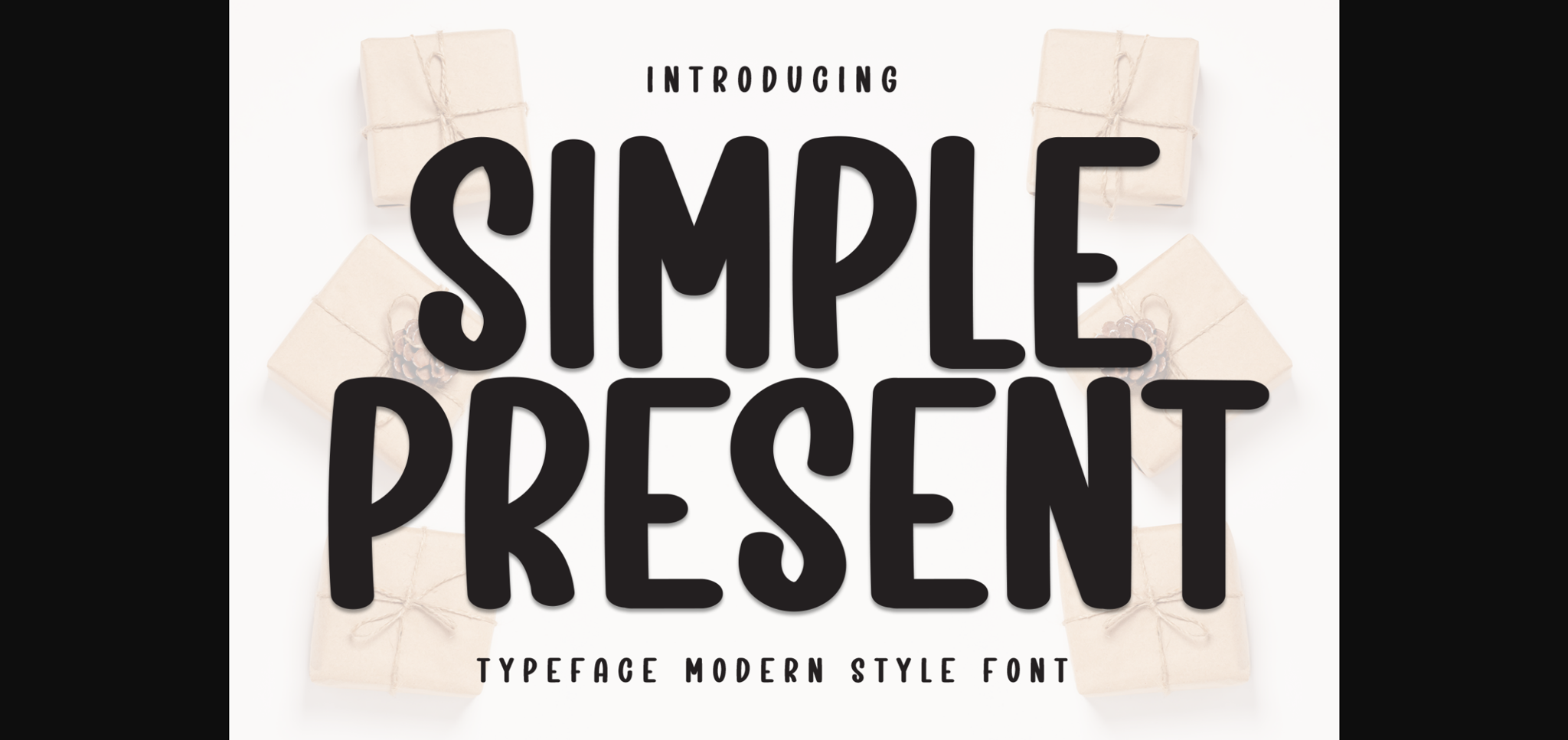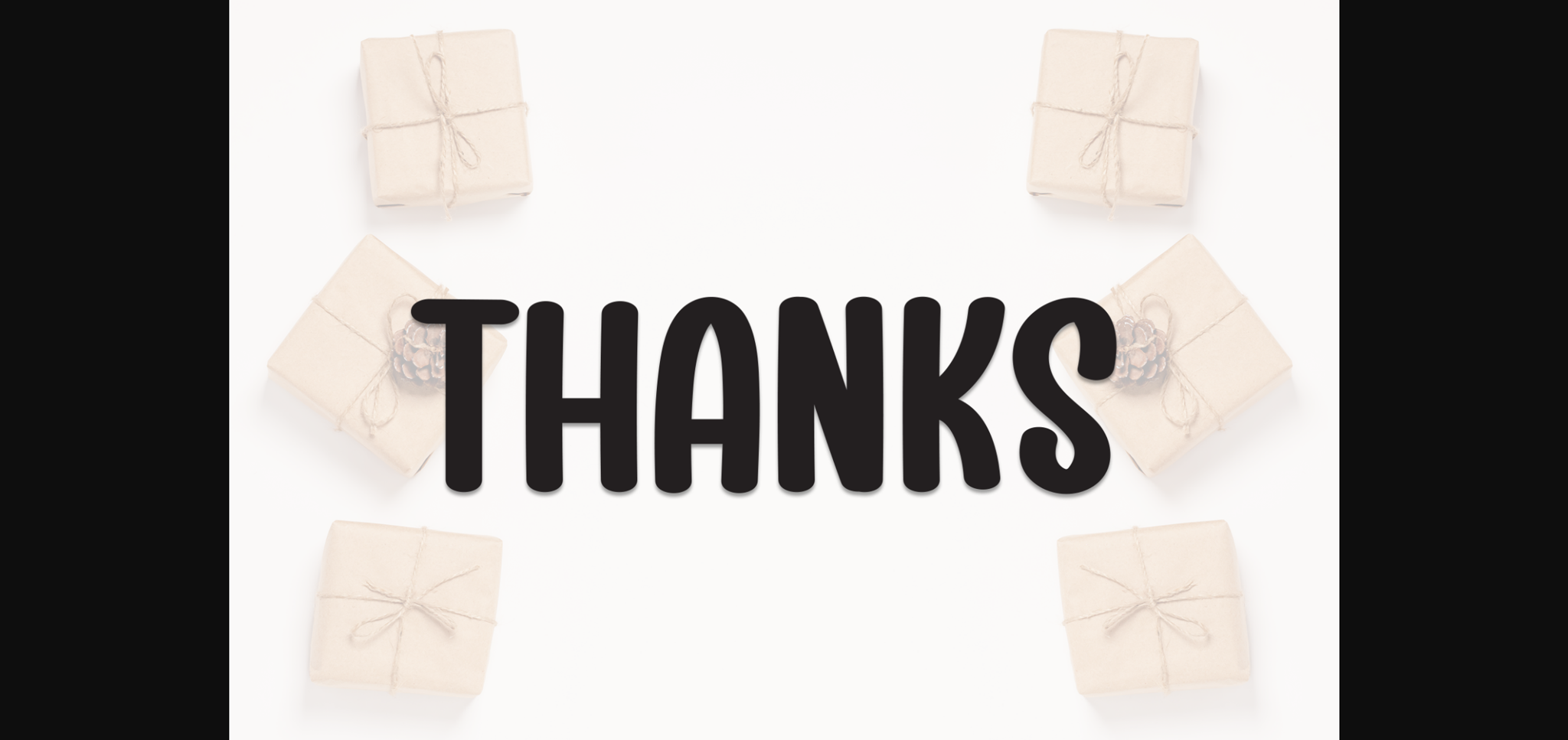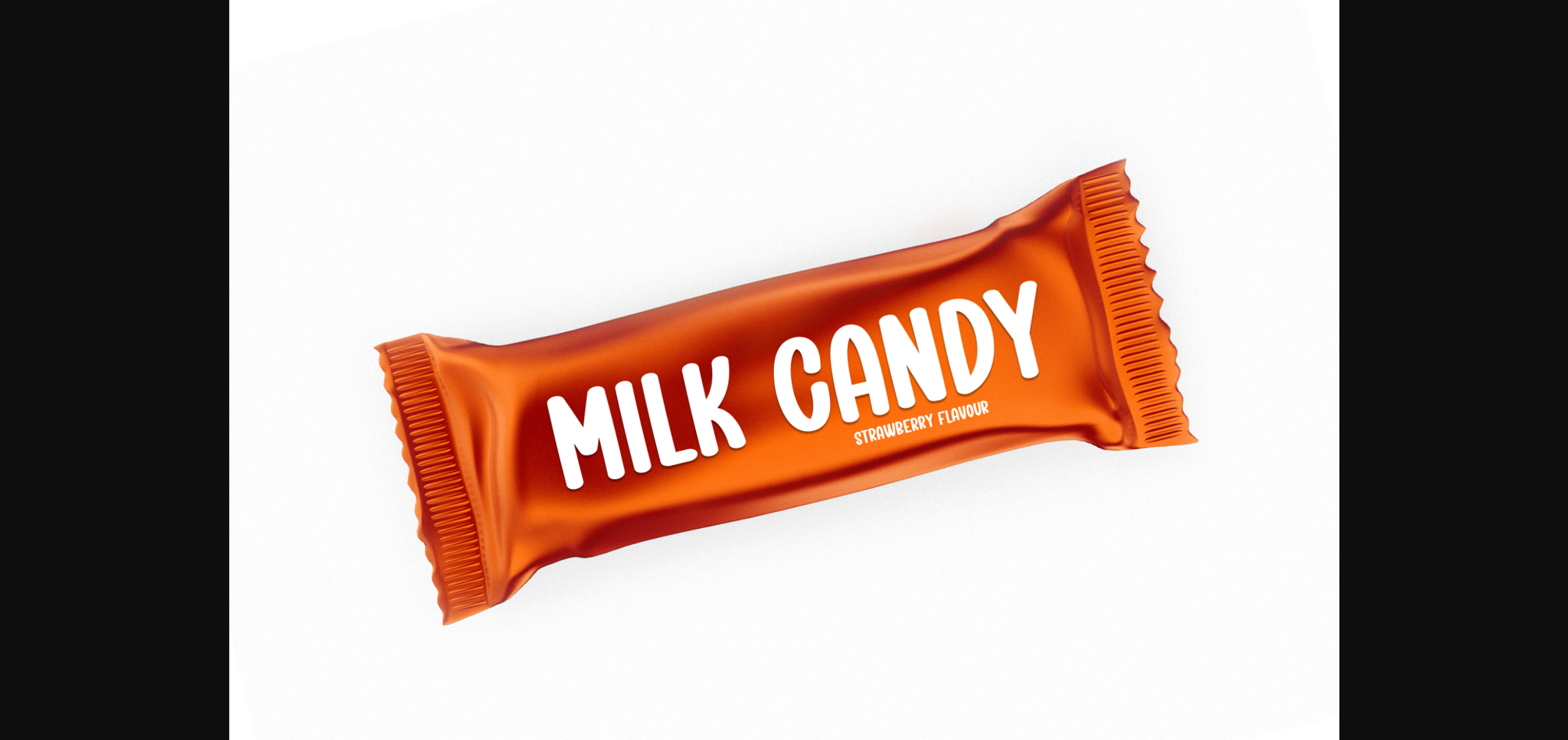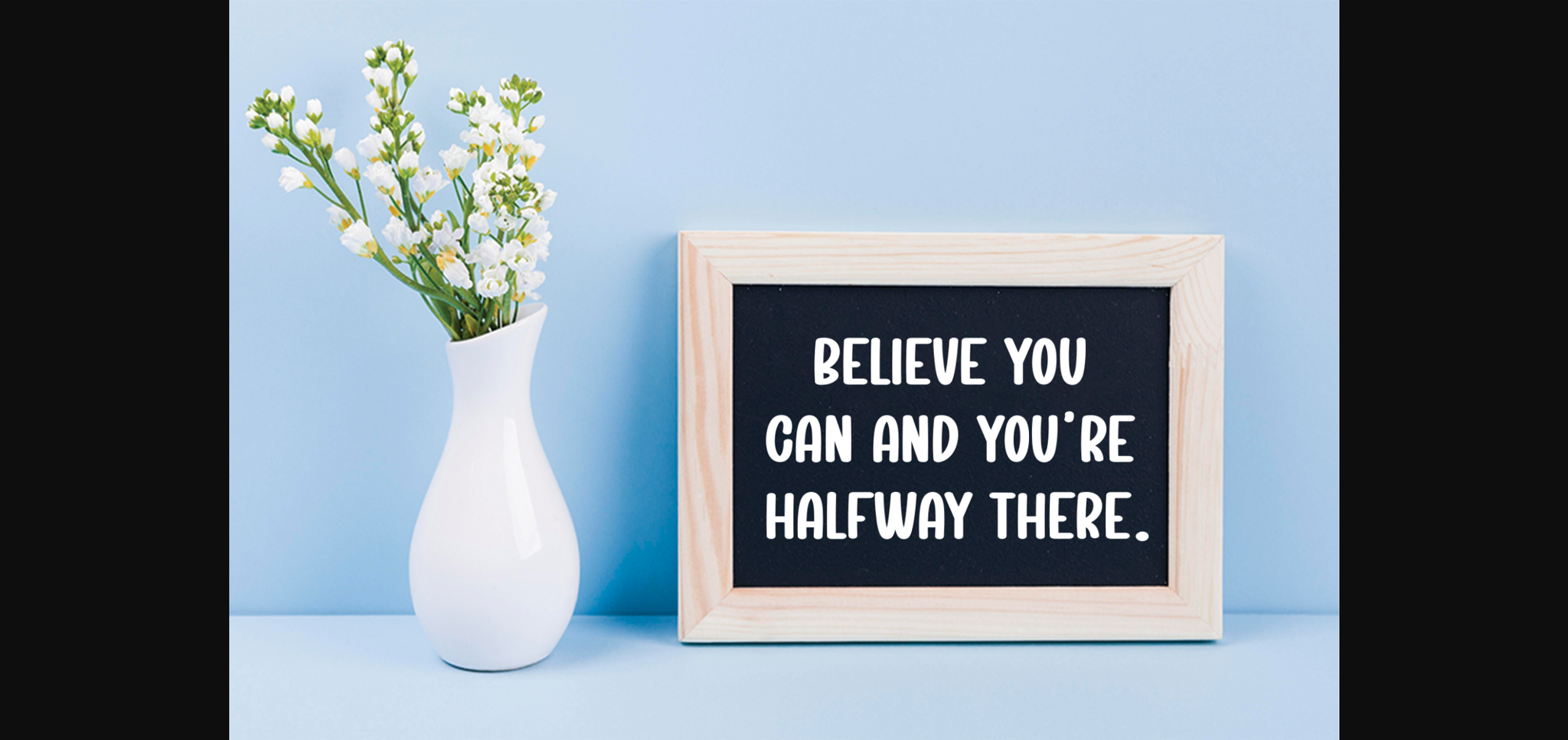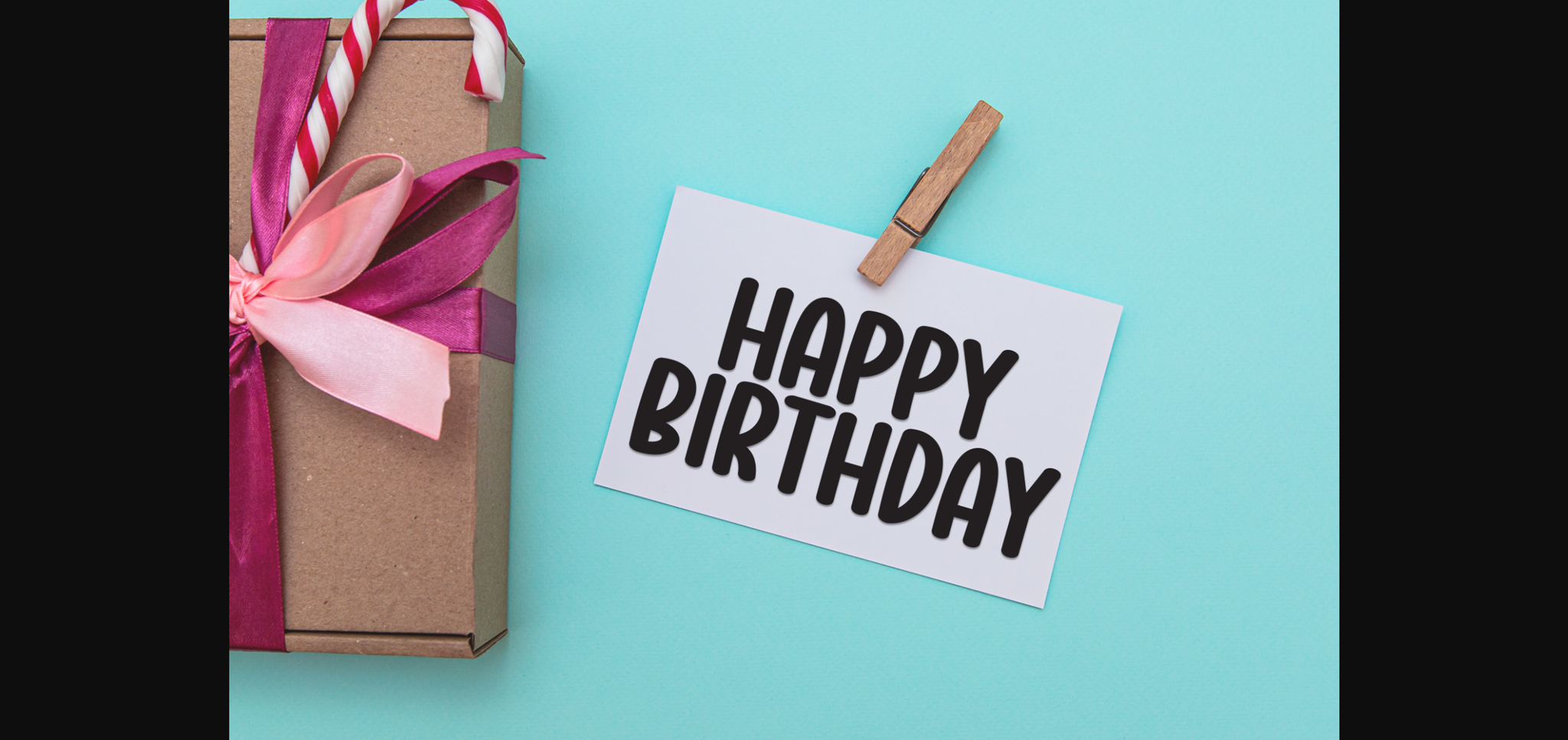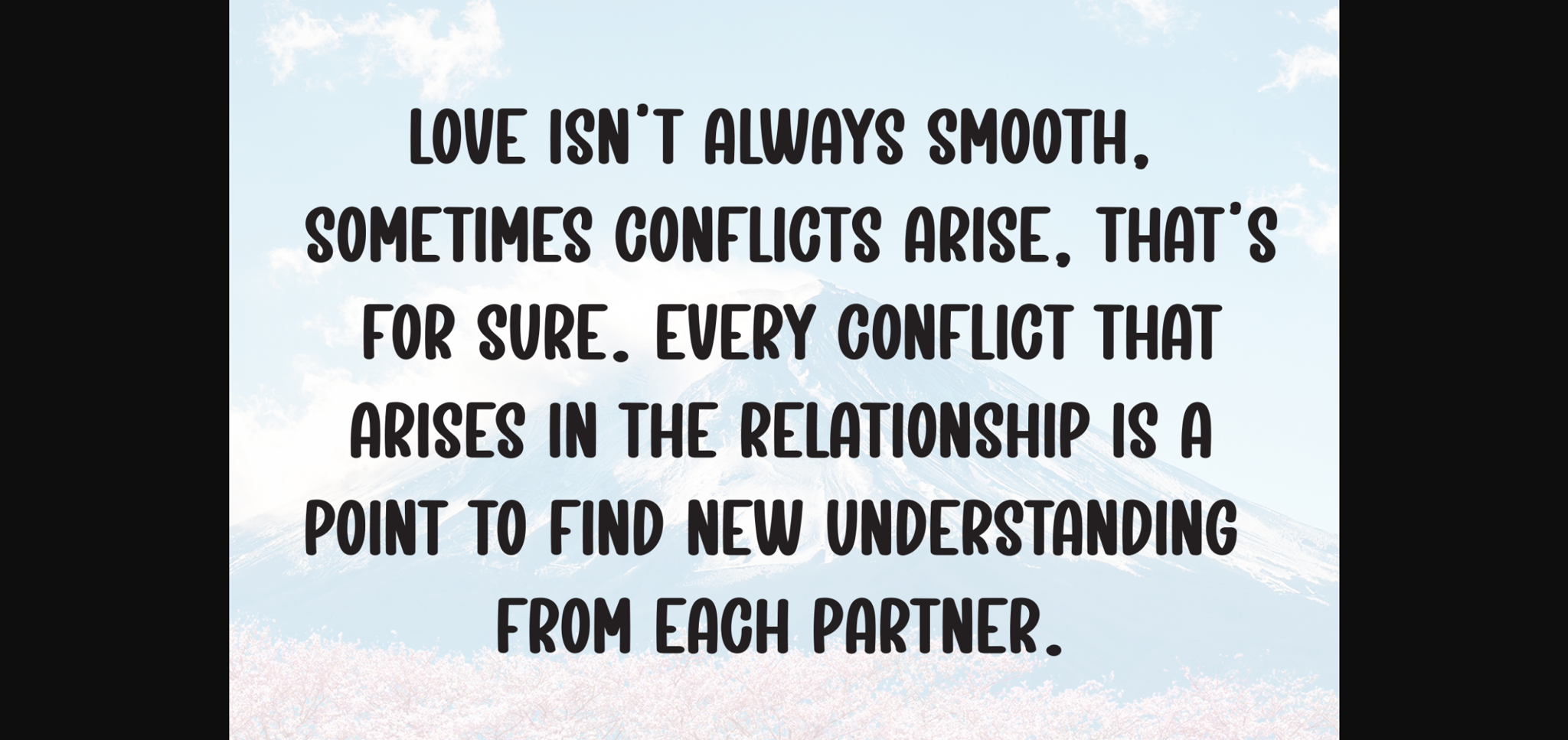
Simple Present Font
About Simple Present Font
Simple Present is a refreshing sans-serif font exuding clarity and simplicity. Its clean lines and balanced proportions make it perfect for a variety of design projects. Whether used in print or digital media, Simple Present brings a modern and professional touch, ensuring readability and visual appeal in every application.